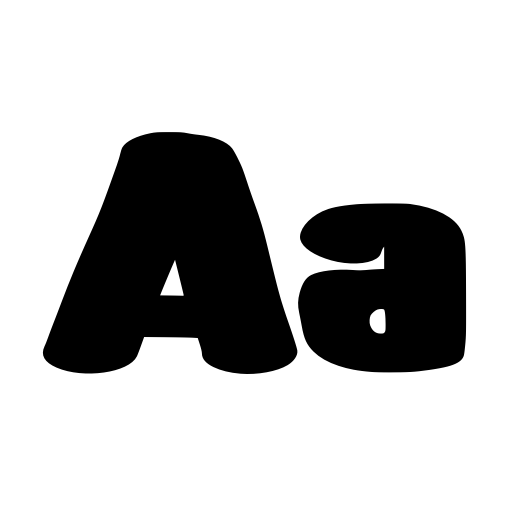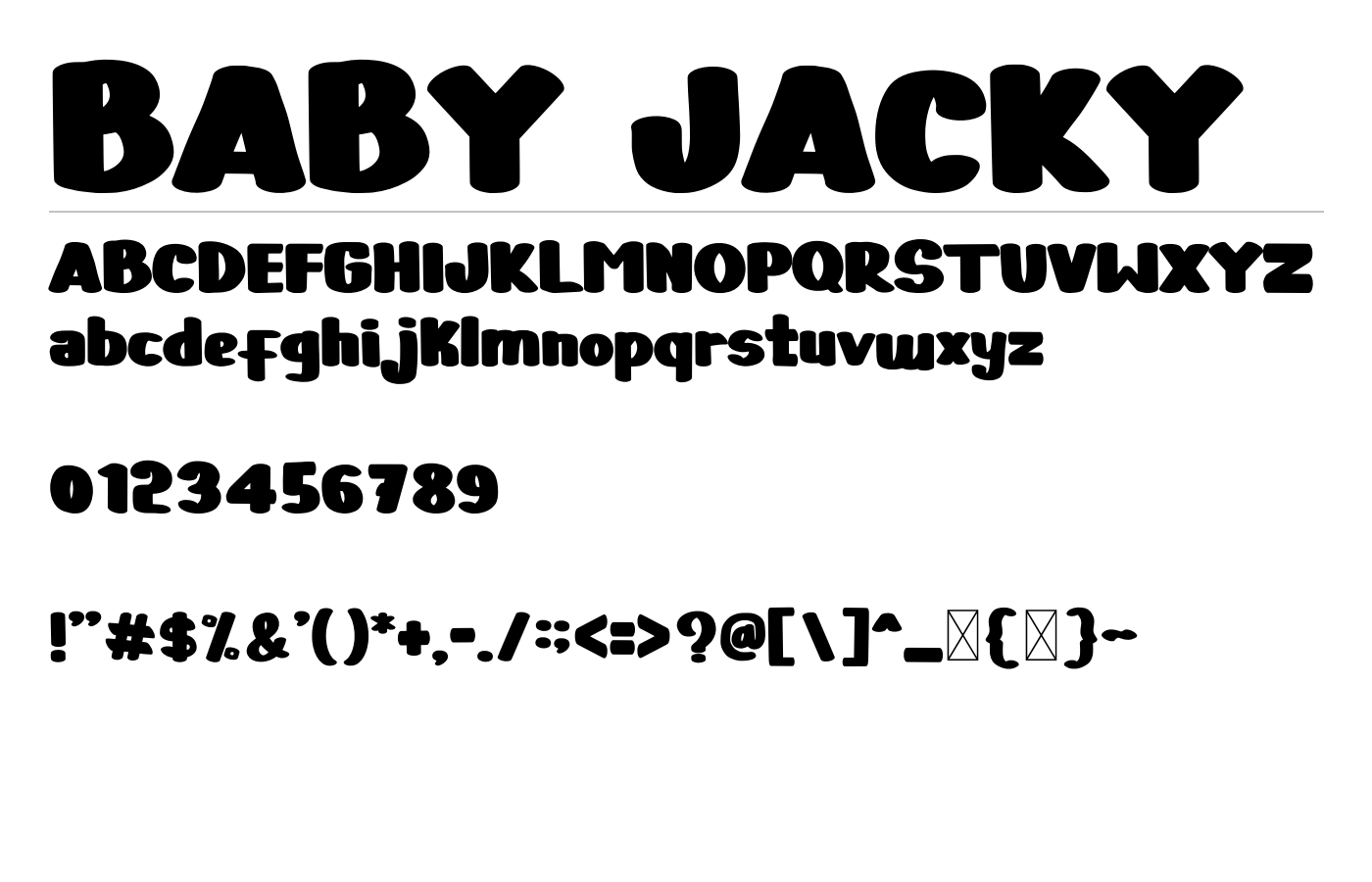
Baby Jacky is a bold, playful sans serif font with chunky, rounded letterforms that exude a friendly and fun vibe. Its thick strokes and lively shapes make it ideal for eye-catching headlines, children's products, and casual branding where a cheerful and approachable style is desired. This font stands out with its warm personality and strong presence, perfect for designs meant to engage and delight.
BABY JACKY Font
About BABY JACKY Font
| Font family | BABY JACKY Font |
| Designer | Minimalist Eyes |